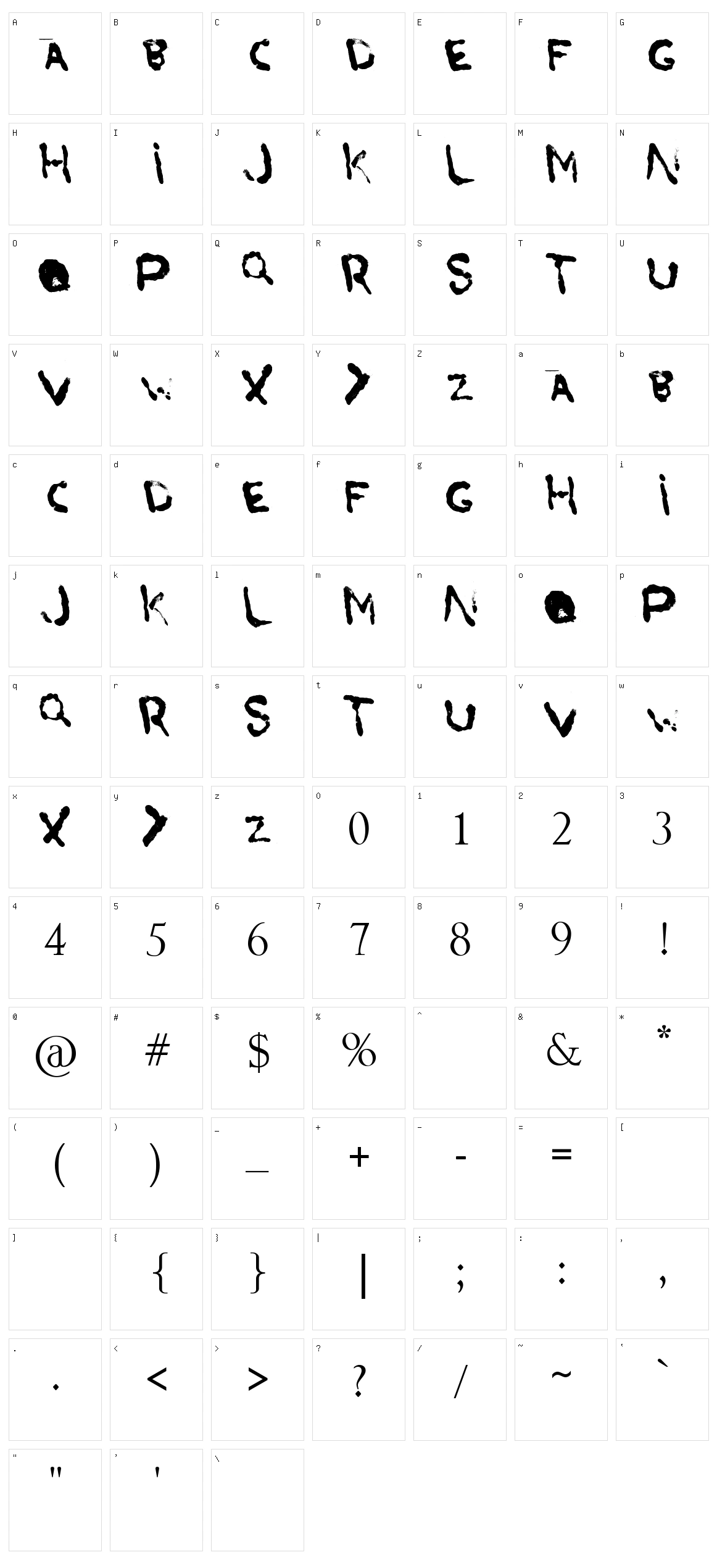
The free font Arslan's Blood is carefully designed by Arslan Khaliq, showcasing a thoughtful balance of creativity and usability and falls under the Trash font style. When you download the ZIP file, it contains only 96.45 KB of font files, making it lightweight and quick to download. Please review the license details below to understand permitted usage and distribution rights. If license information is not available, we recommend using this font for personal projects only or contacting the author directly for commercial usage permissions.